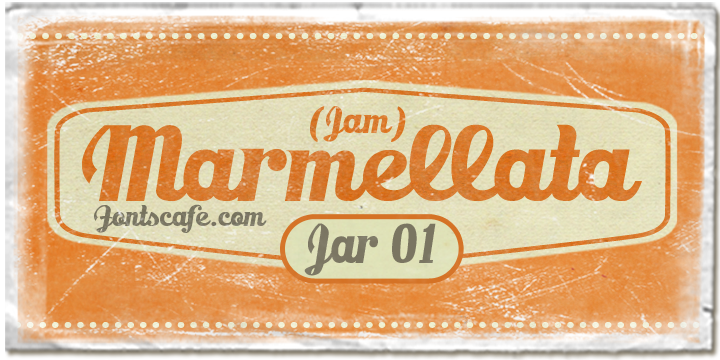
Marmellata Jar 01 Font is perfect for artisanal food packaging, homemade preserve labels, farmers market signage, rustic bakery branding, organic jam products, vintage kitchen designs, cottage industry materials, and cozy restaurant menus.
What makes Marmellata Jar 01 Font exciting is its handcrafted warmth that captures the sweet nostalgia of homemade preserves and artisanal food traditions. The organic letterforms and jar-inspired character design evoke memories of grandmother's kitchen while maintaining contemporary appeal for modern artisanal brands.
Marmellata Jar 01 Font family includes regular, bold, light, vintage, and decorative versions, plus kitchen ornaments, fruit symbols, and preserving jar elements that enhance the artisanal typography experience with authentic homemade charm.
Taste the sweetness of tradition with Marmellata Jar 01 Font Free Download, the perfect choice for brands celebrating handcrafted food heritage and artisanal quality. This delightful typeface captures the essence of homemade preserves through letterforms that seem to carry the aroma of fresh fruit and the warmth of traditional kitchens. The lovingly crafted characters feature organic irregularities that make every word feel personally made with care and attention to detail. Artisanal food producers and craft brands consistently choose this font for projects requiring authentic connection to traditional food-making practices combined with contemporary market appeal. Its comprehensive kitchen-inspired elements provide unlimited possibilities for creating memorable packaging that celebrates the art of preservation and the joy of homemade goodness. Experience the comforting appeal of handcrafted typography that transforms ordinary product labels into invitations to taste tradition, establishing your brand as a curator of authentic flavors in today's mass-produced marketplace.